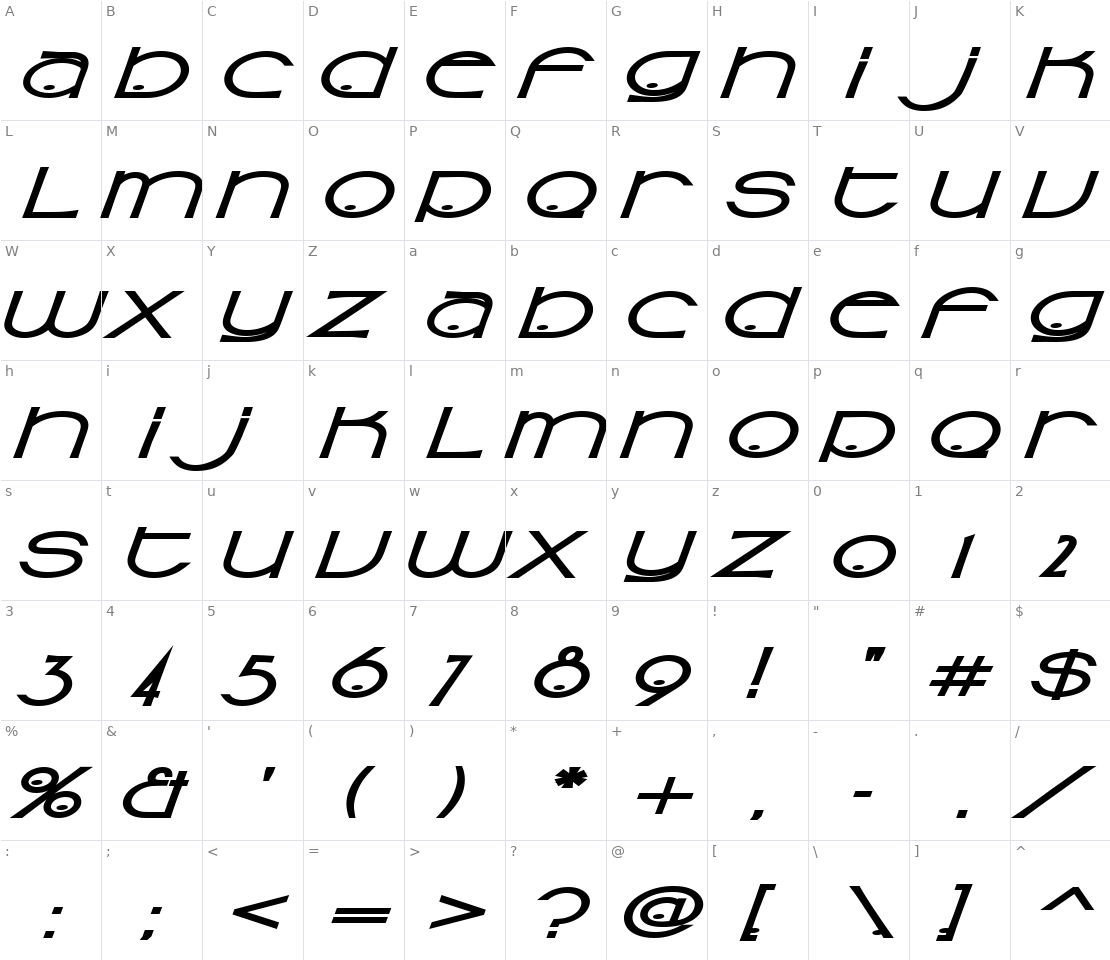
Sonic Superpowers
Sonic Superpowers is a wide, forward-leaning display face from Fontalicious with rounded letterforms and a sleek, aerodynamic quality that feels like speed made visible. The italic slant and generous proportions give it a distinctly futuristic personality, right at home on game titles, sci-fi branding, and anything that needs to feel fast and modern. Best kept to headlines and large sizes where its curves and momentum can do their thing.